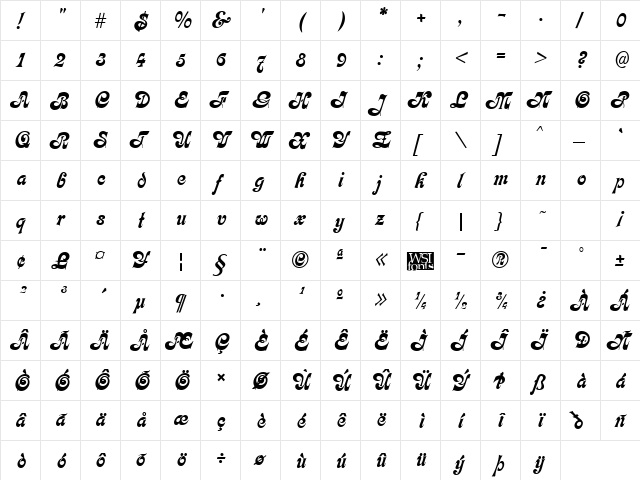
Fleetwood Regular
Design Context for Fleetwood Typeface
Fleetwood echoes the hand-painted signage and woodblock typography of the American frontier, with a warm, rugged personality.
A natural fit for craft spirits, ranch branding, rodeo events, and Americana-inspired design work.
Font Pairing: Combine Fleetwood with a simple slab or neutral sans — period-accurate companions reinforce the vintage feel without competing for attention.
Pro Tip: Use Fleetwood for short, impactful bursts of text — it shines in poster headlines and product names rather than extended copy.